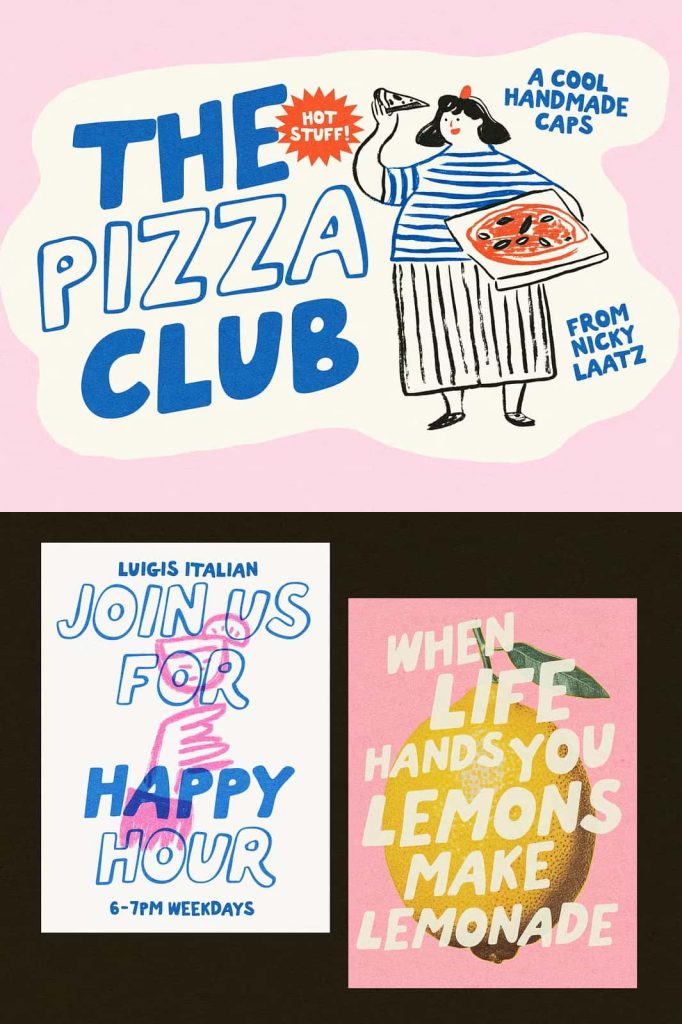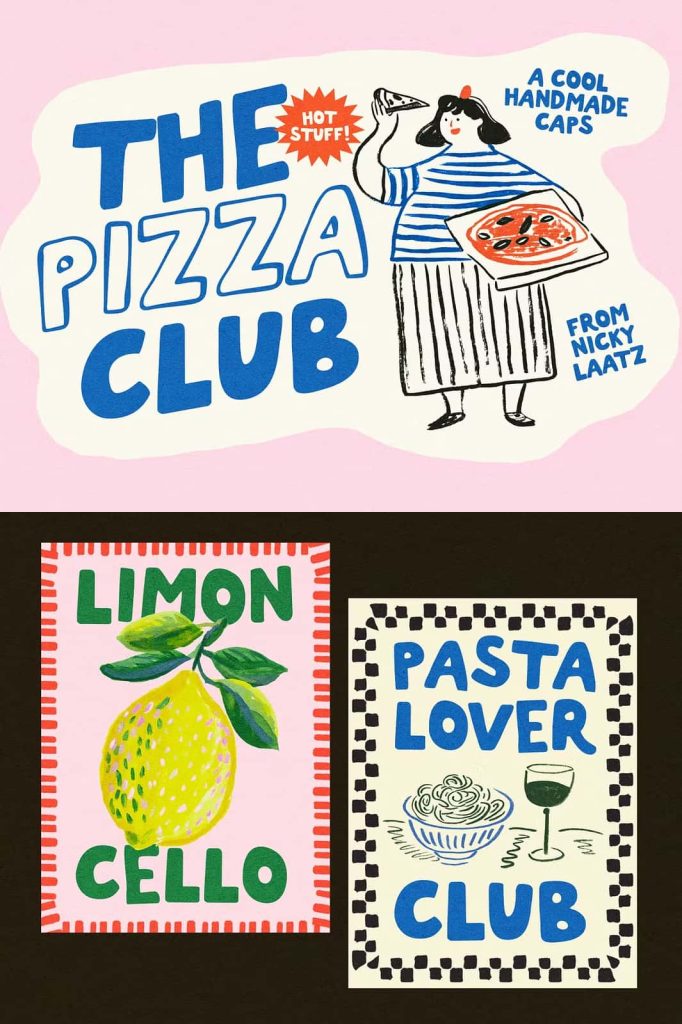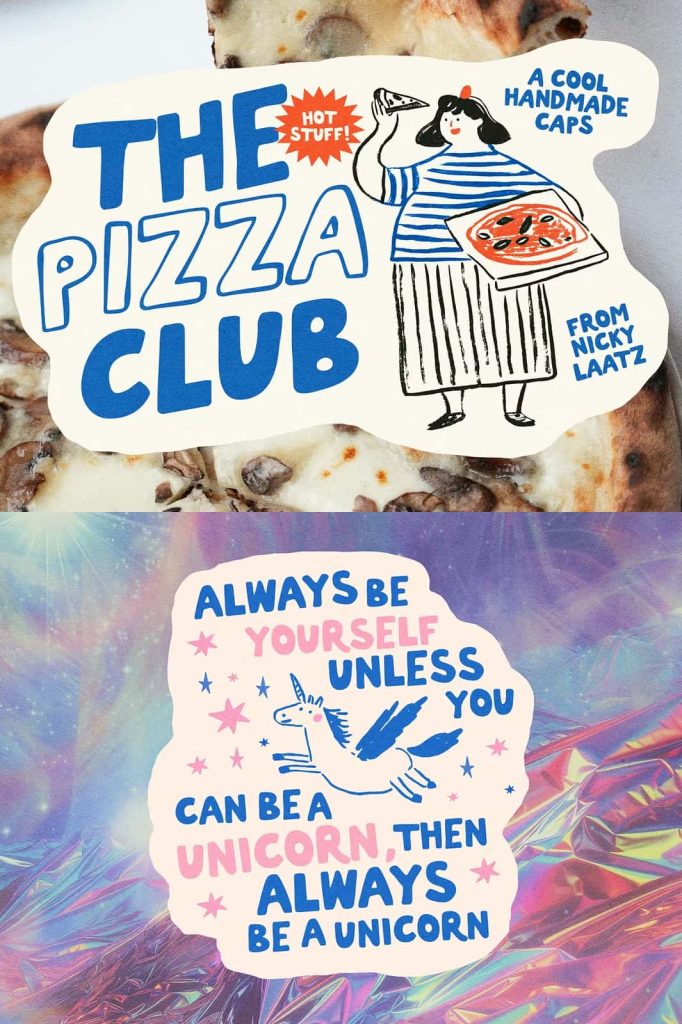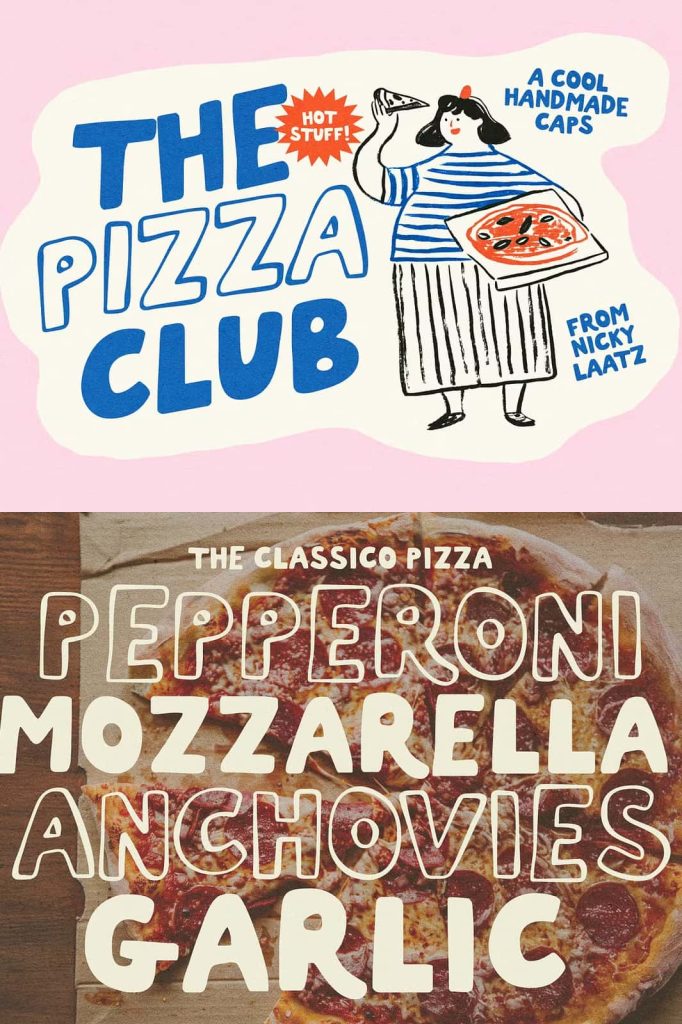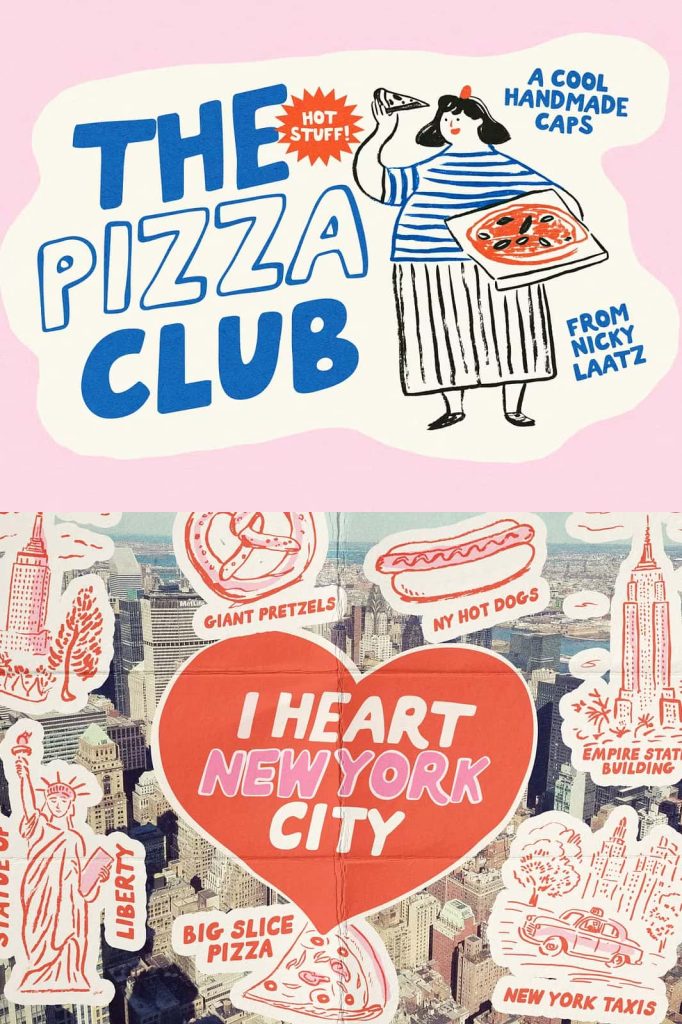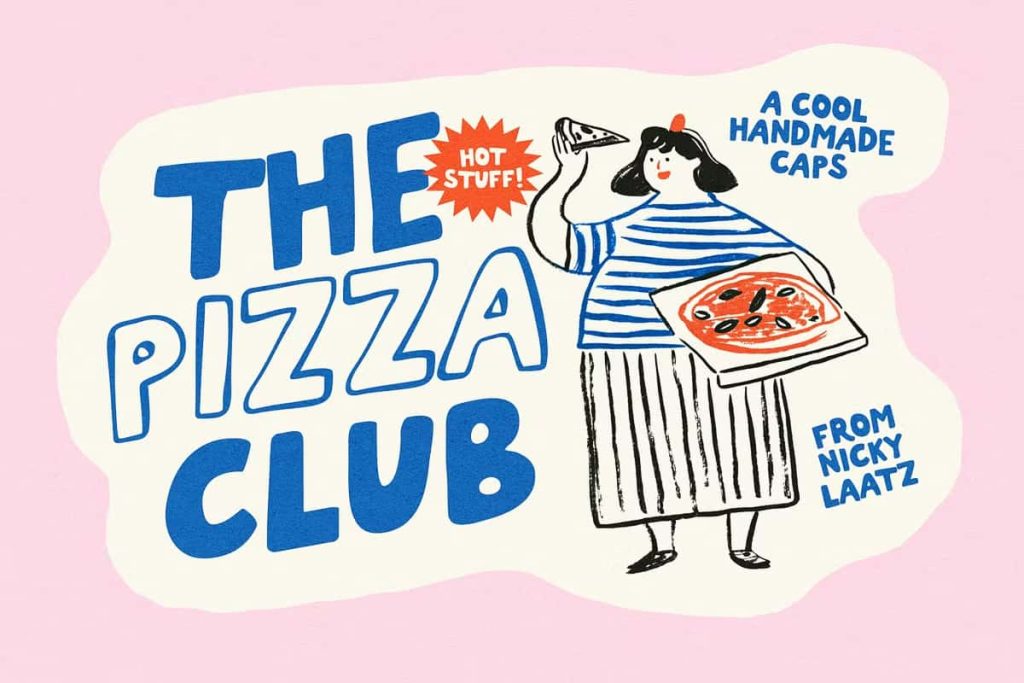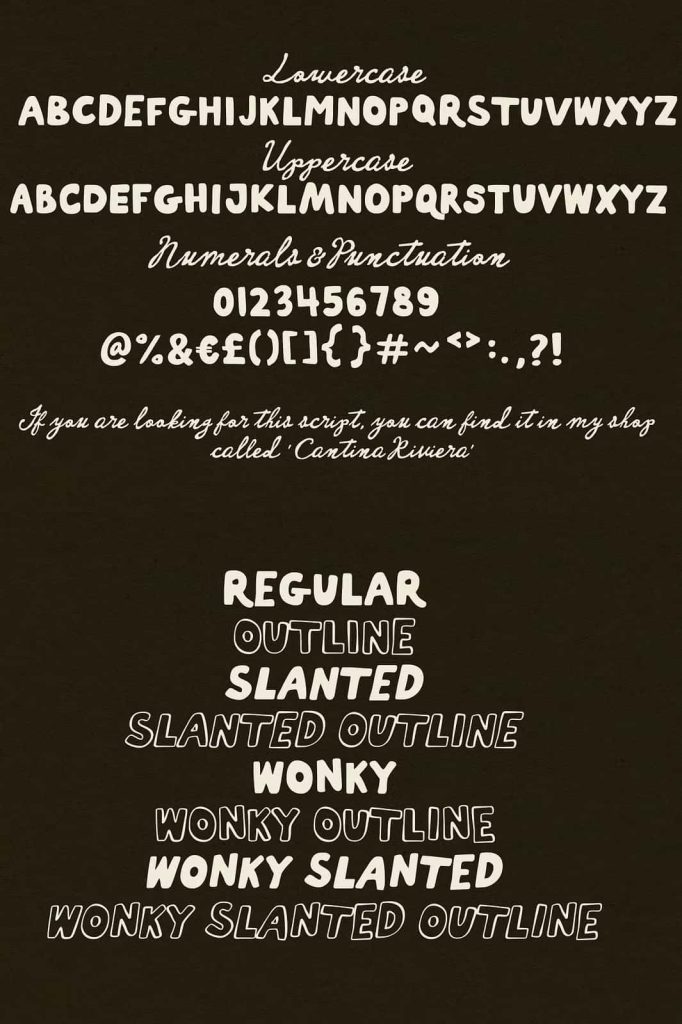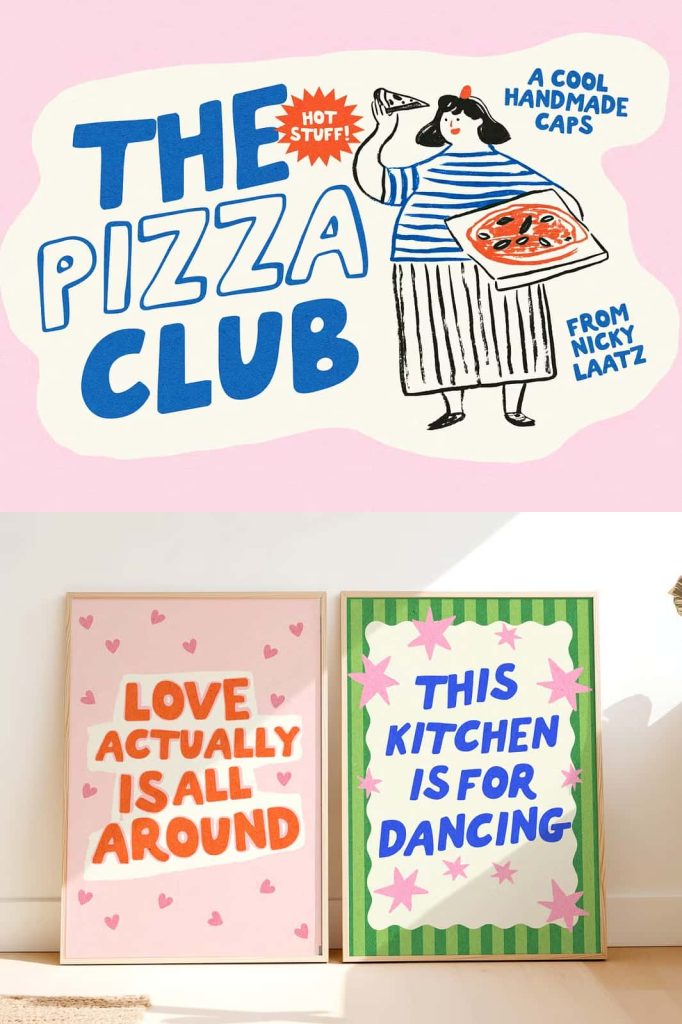
Pizza Club Handmade All Caps Font
Pizza Club is a bold handmade all-caps font that brings together retro inspiration and modern design. Created with a playful personality and confident structure, this display typeface helps designers produce memorable visuals for a wide variety of creative projects. Every character has been carefully handcrafted to deliver a natural appearance while maintaining excellent readability and consistency.
Whether you are designing a logo, restaurant branding, product packaging, social media graphics, posters, or merchandise, Pizza Club offers the flexibility to make your typography stand out. Its chunky letterforms and energetic style instantly attract attention while giving every project a warm and approachable personality.
Bold Handmade Style with Retro Character
Pizza Club captures the nostalgic feeling of classic retro typography while introducing a fresh handmade aesthetic that works beautifully in today’s creative landscape. The thick strokes and playful proportions create an inviting look that feels authentic rather than overly polished. This combination makes the font suitable for projects that need both personality and professionalism.
Unlike standard display fonts, Pizza Club embraces subtle handcrafted imperfections that add warmth and originality to every design. These details help your text feel more human, making it ideal for brands that want to establish a friendly and memorable visual identity.
Perfect for Creative Design Projects
The versatility of Pizza Club allows it to perform well across many different industries and design applications. Its bold appearance ensures your headlines remain readable while making a lasting impression on viewers. Whether used digitally or in print, the font maintains its distinctive personality without sacrificing clarity.
You can confidently use Pizza Club for:
- Brand identities
- Logo design
- Restaurant and café branding
- Pizza shop menus
- Food packaging
- Product labels
- Posters and flyers
- Book and magazine covers
- YouTube thumbnails
- T-shirt and apparel designs
- Stickers and merchandise
- Advertising campaigns
- Website headers
- Creative presentations
Designed to Make Headlines Stand Out
Pizza Club excels as a display font because of its thick letterforms and confident structure. Large headlines become more engaging, while short promotional messages immediately capture attention. The font naturally creates strong visual hierarchy, helping important information stand out on posters, banners, advertisements, and digital content.
Its playful attitude also makes it an excellent choice for brands targeting younger audiences or businesses looking to communicate energy, creativity, and fun. At the same time, its balanced construction prevents the font from appearing overly casual, allowing it to adapt to more sophisticated branding projects as well.
A Blend of Modern and Vintage Inspiration
One of Pizza Club’s greatest strengths is its ability to bridge two popular design trends. It combines the timeless appeal of vintage typography with the clean presentation expected in modern graphic design. This unique balance allows designers to create projects that feel nostalgic without appearing outdated.
The handcrafted details bring authenticity, while the bold proportions provide excellent visibility across both digital screens and printed materials. This versatility makes Pizza Club a valuable addition to any designer’s font collection.
Why Choose Pizza Club?
- Handmade all-caps display font
- Bold and chunky letterforms
- Retro-inspired style with a modern twist
- Excellent readability for large headlines
- Unique handcrafted character in every letter
- Ideal for branding and advertising
- Suitable for print and digital media
- Works across a wide variety of creative industries
Bring More Personality to Every Design
If you are looking for a typeface that combines confidence, creativity, and handcrafted charm, Pizza Club is an outstanding choice. Its bold appearance helps your message become more noticeable while maintaining a welcoming and approachable personality. From restaurant branding and packaging to promotional materials and social media content, this font delivers consistent visual impact across countless creative applications.